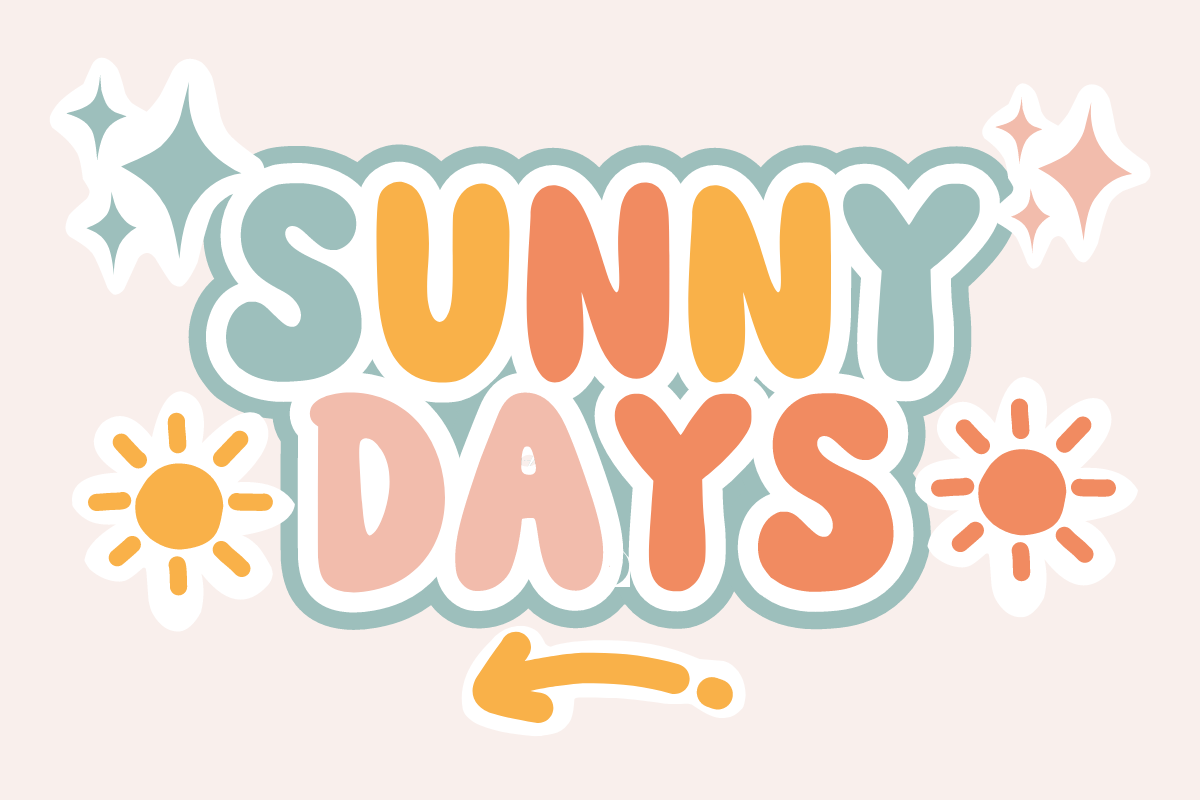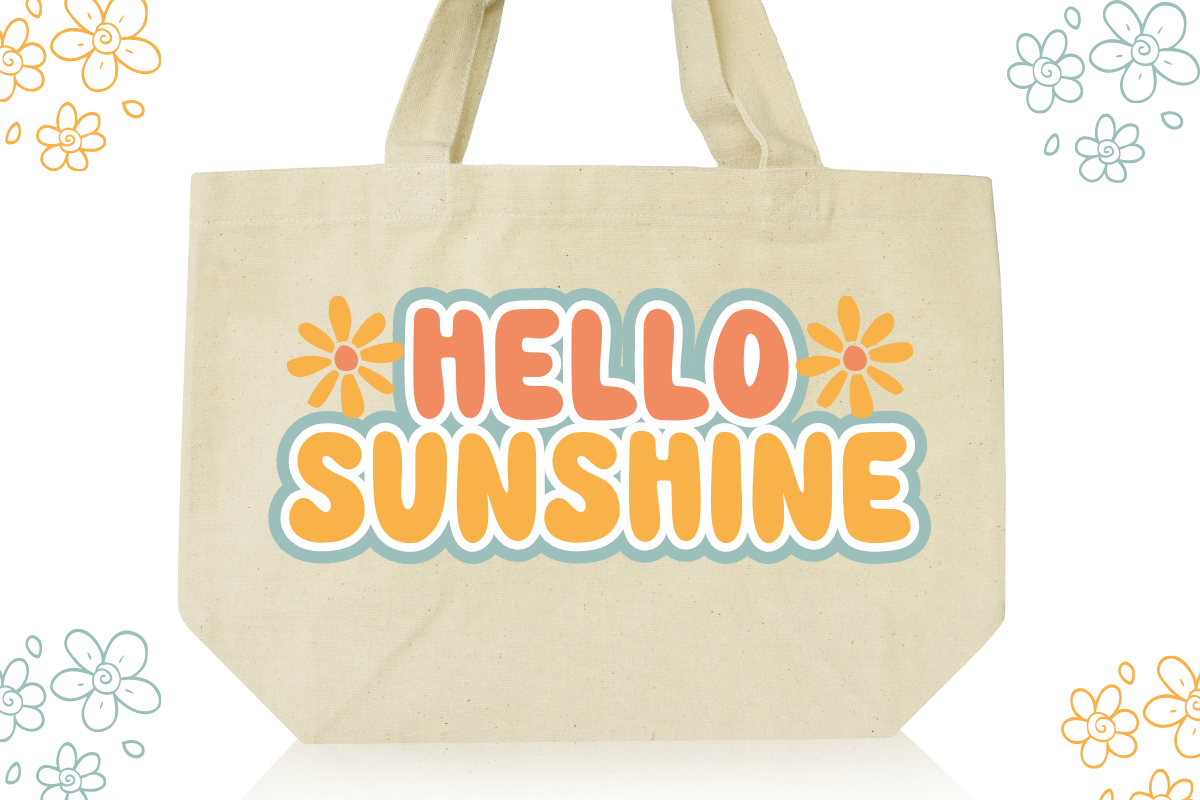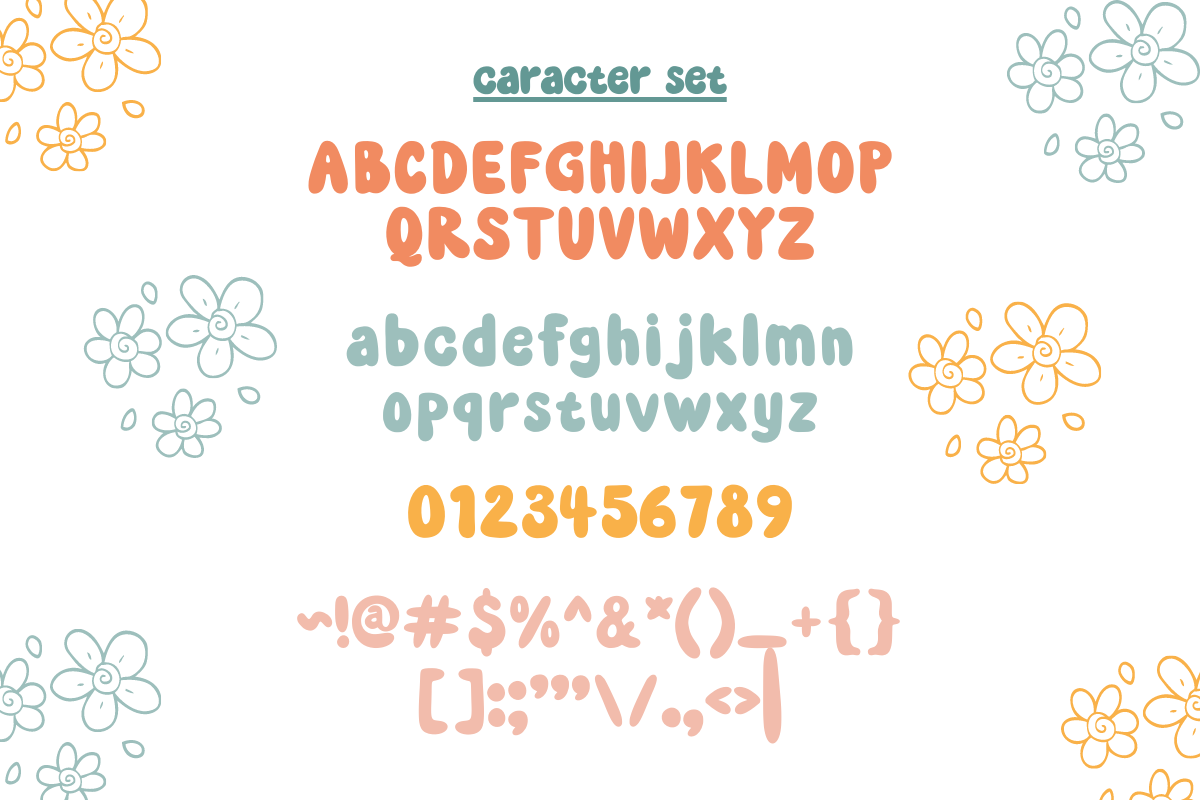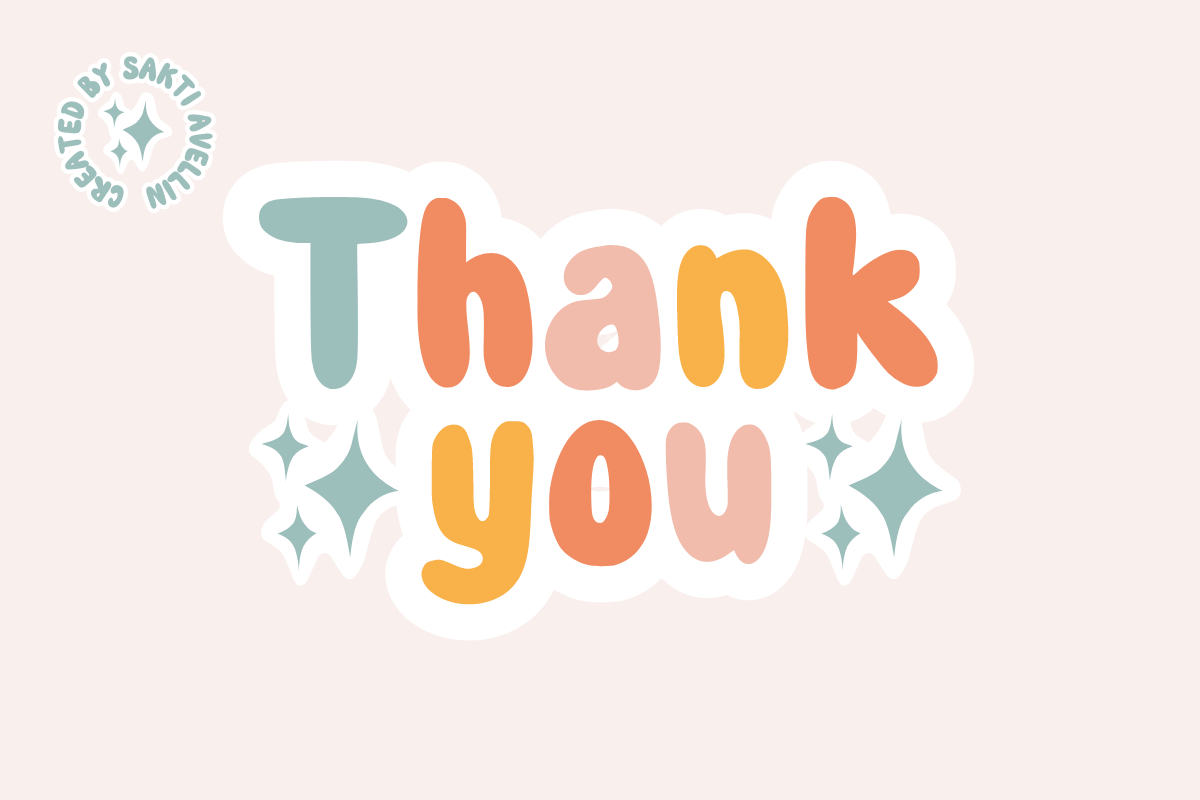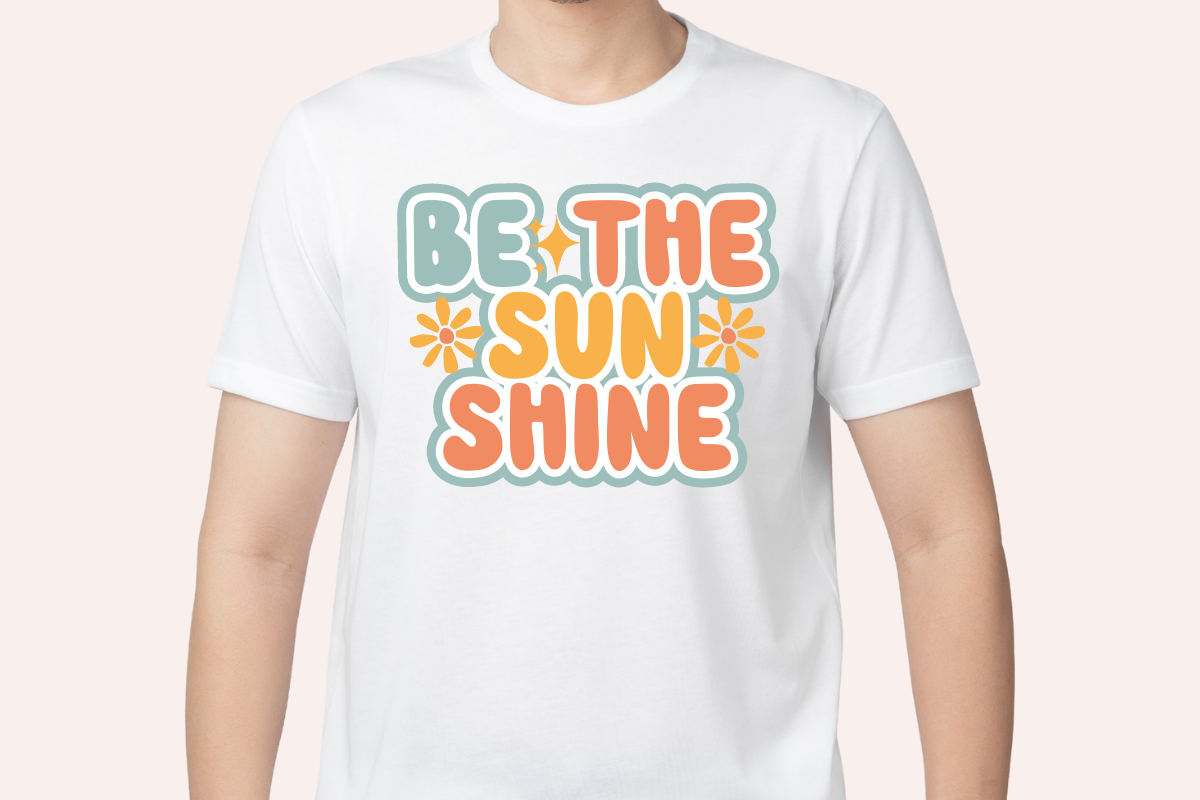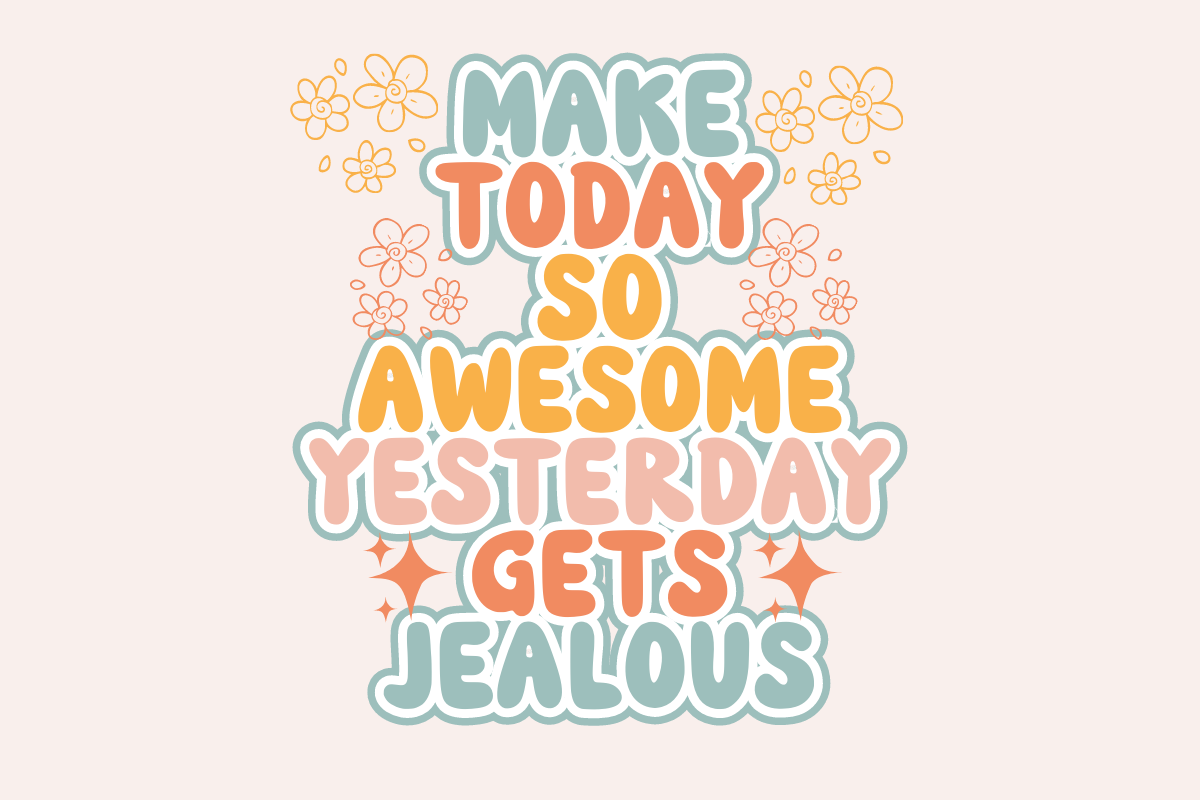
Hello Sunshine
Immerse yourself in the whimsical charm of Funny Sunshine - a font that exudes playful yet adorable vibes. Designed to infuse heartwarming cheer into any project, Funny Sunshine crisply stands out on book covers, posters, packaging, merchandise, and logotype designs, broadening its appeal. Its enigmatic finesse is delivered in both OTF and TTF formats, ensuring seamless adaptation across different projects. Let Funny Sunshine radiate joy and creativity in your designs, setting them apart in a way that's delightfully pleasing to the eye.